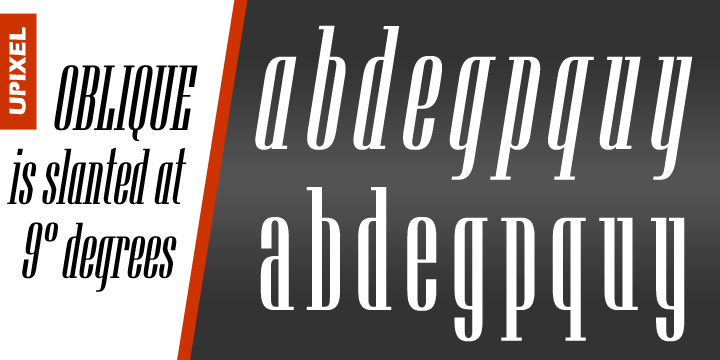
About Manygo Serif Font Family
This font is inspired by American type in the 40s and 50s.
Designers: Michel Troy
Publisher: UrbanPixel
Foundry: UrbanPixel
Design Owner: UrbanPixel